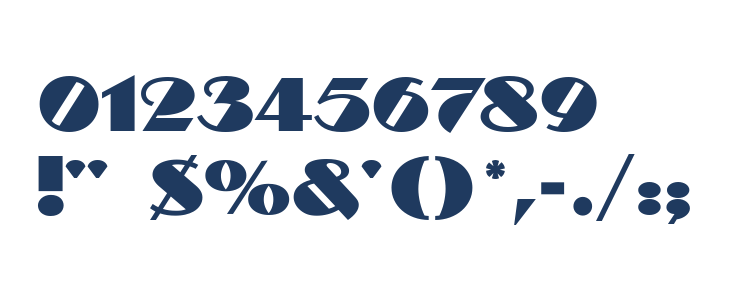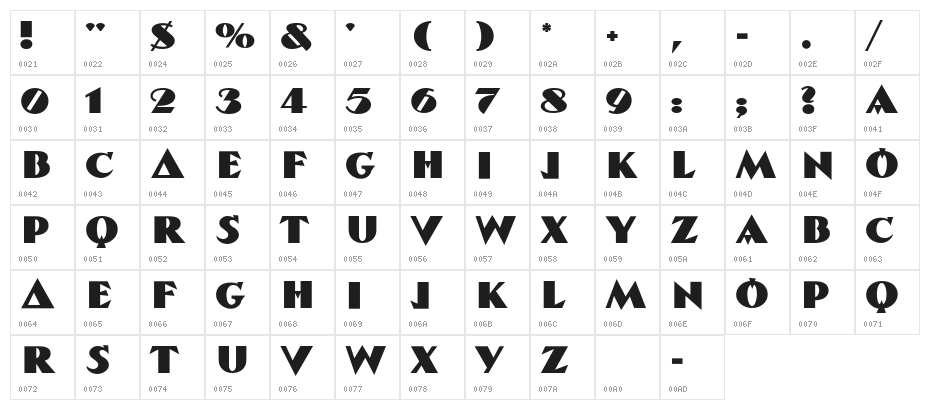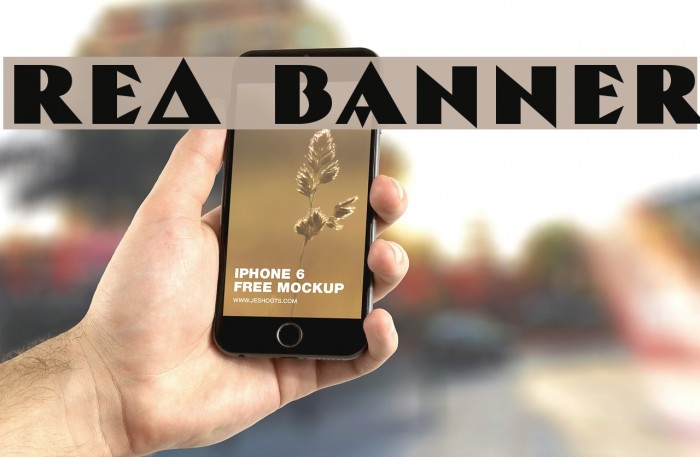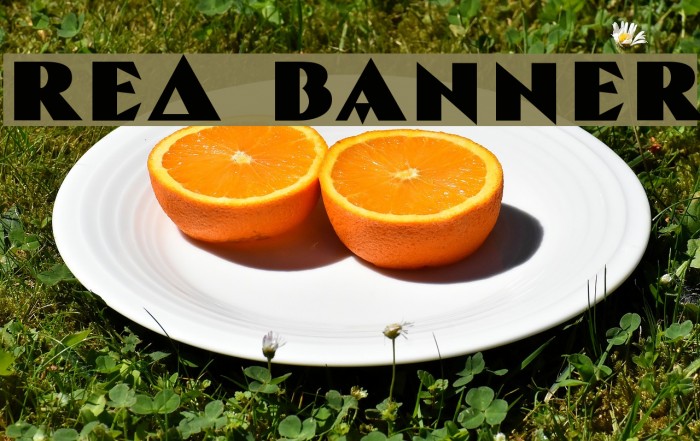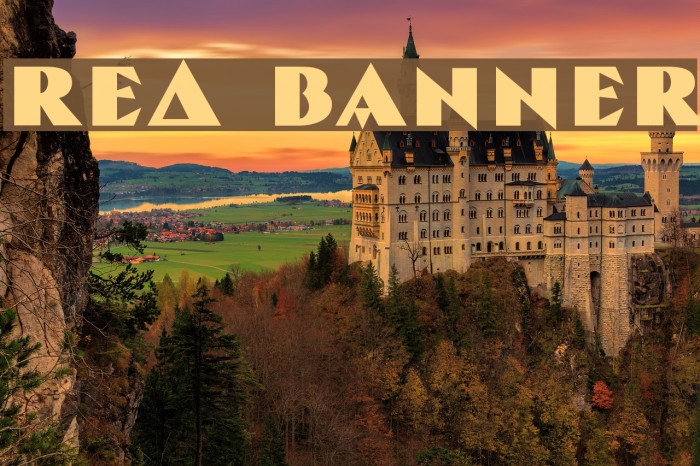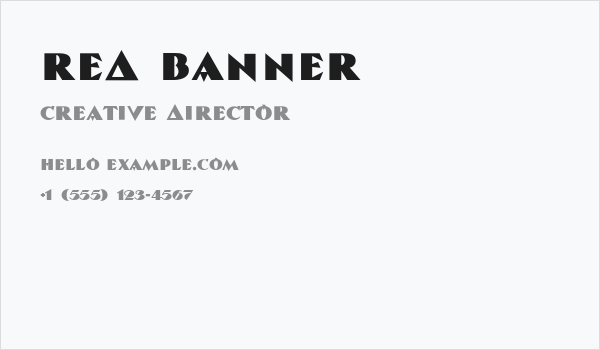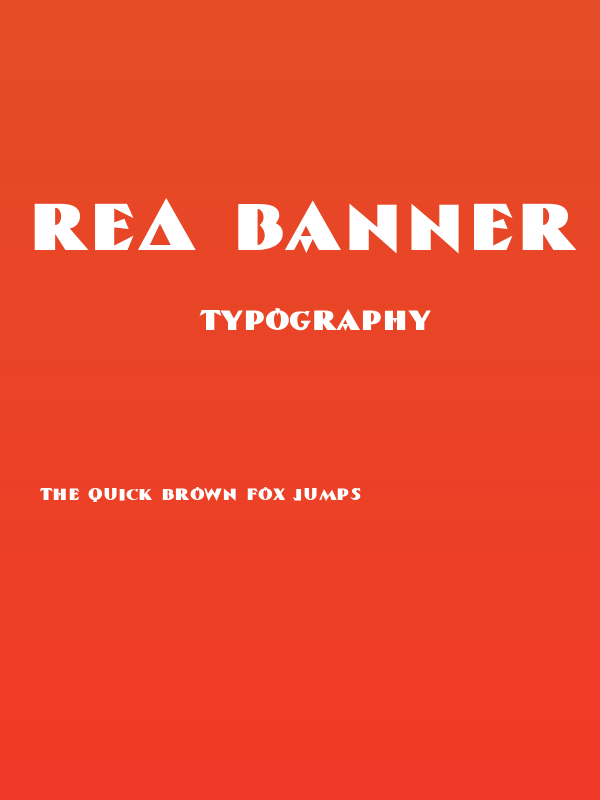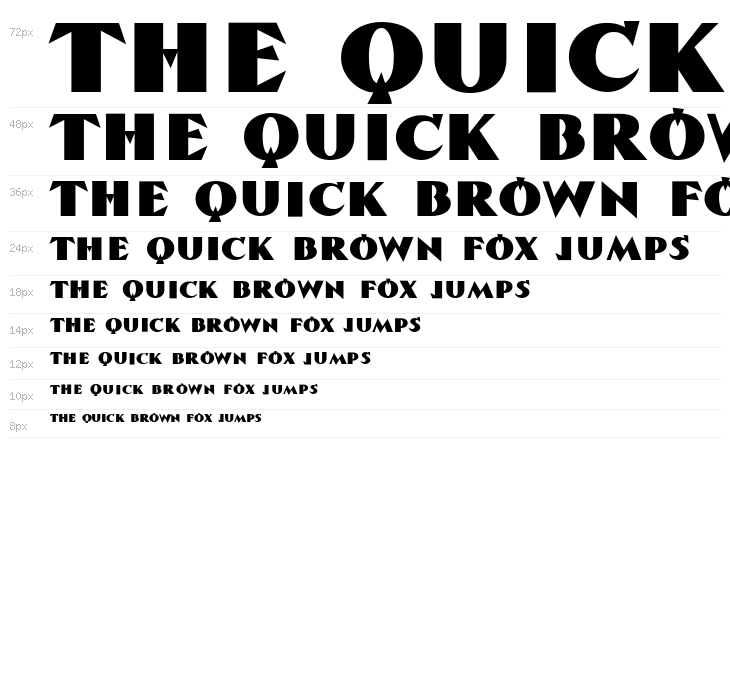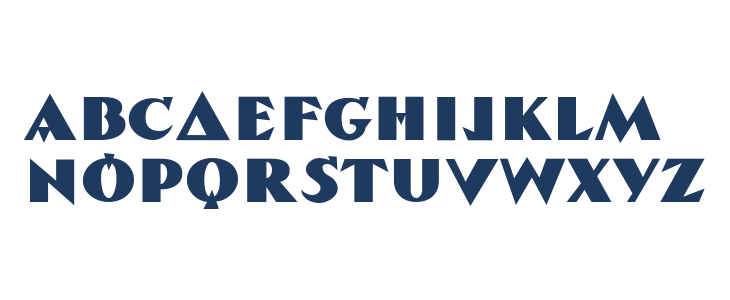
Red Banner Font
Red Banner Description
This font features a bold and striking design with sharp, angular cuts and geometric shapes that create a sense of movement and energy. The uppercase letters are particularly distinctive, with unique triangular and circular cutouts that add a modern and edgy feel. The lowercase letters maintain this dynamic style, ensuring consistency throughout the typeface. Numbers and special characters are equally bold, with a cohesive design that complements the alphabet. The overall appearance is both contemporary and artistic, making it suitable for projects that require a strong visual impact.
| Proposed Projects | Ideal for branding, posters, headlines, and any project needing a bold, modern aesthetic. |